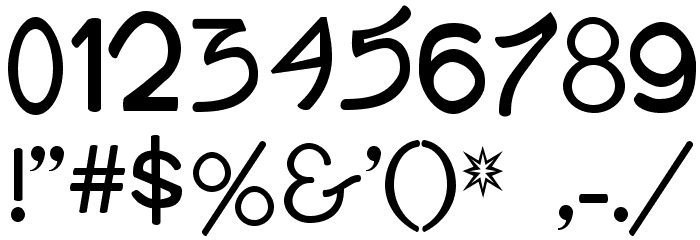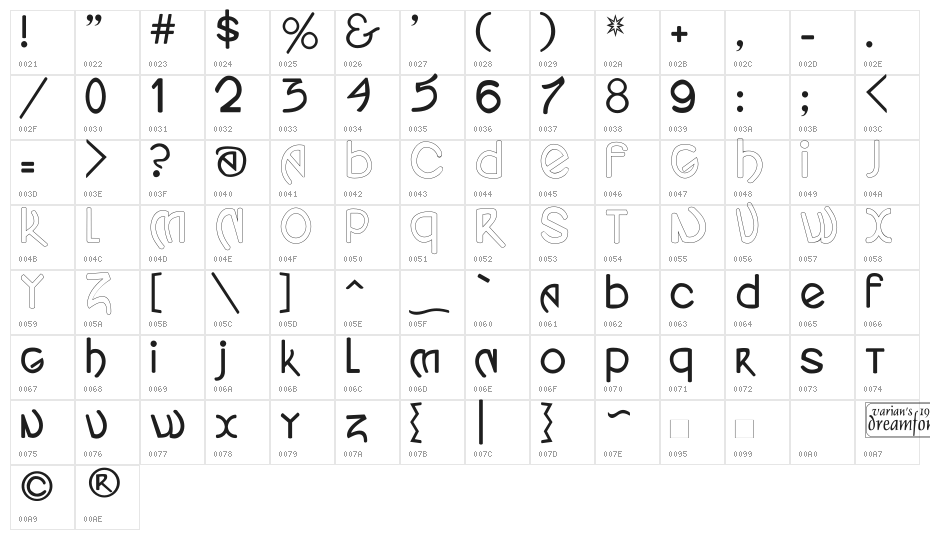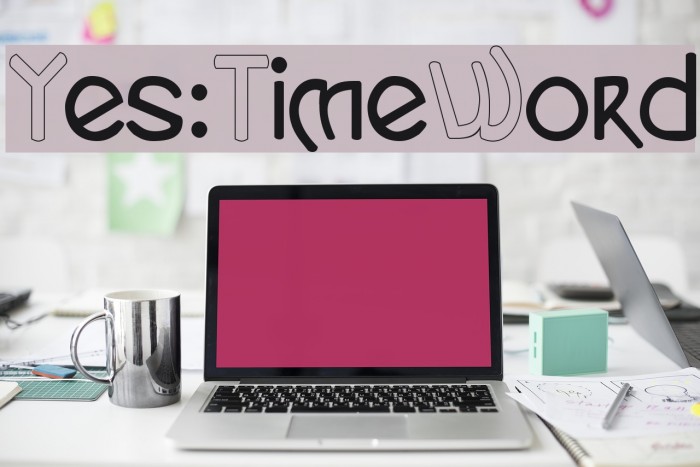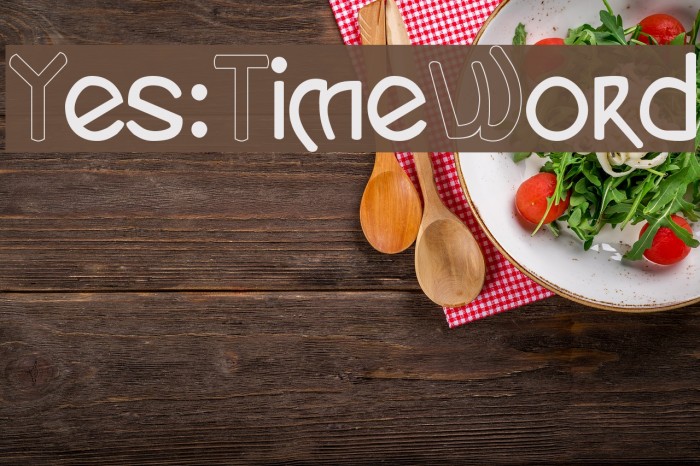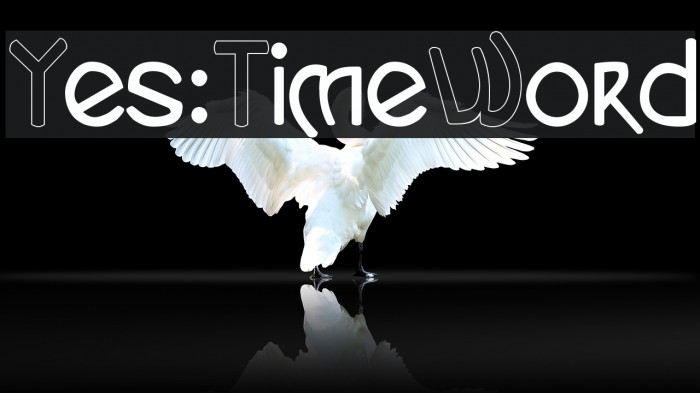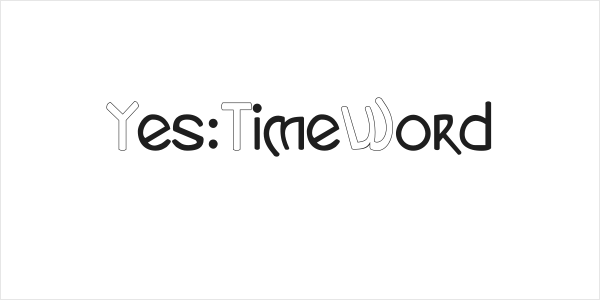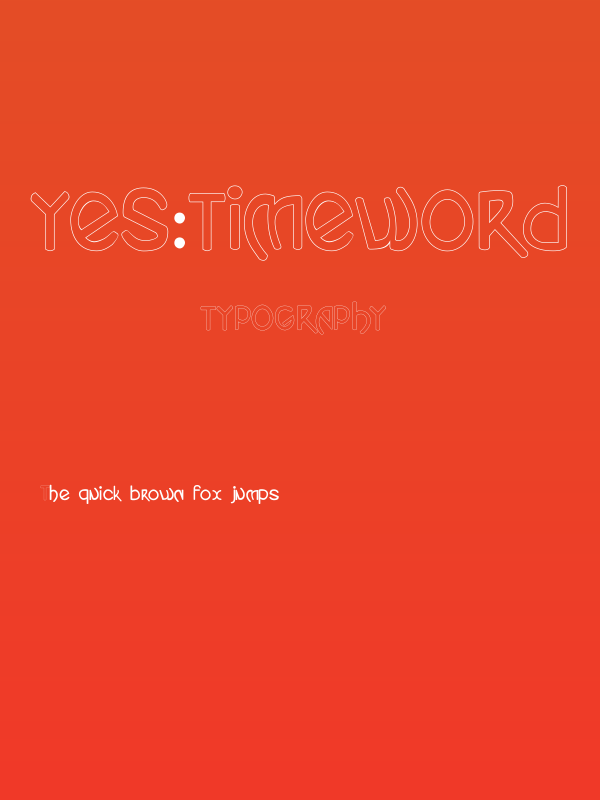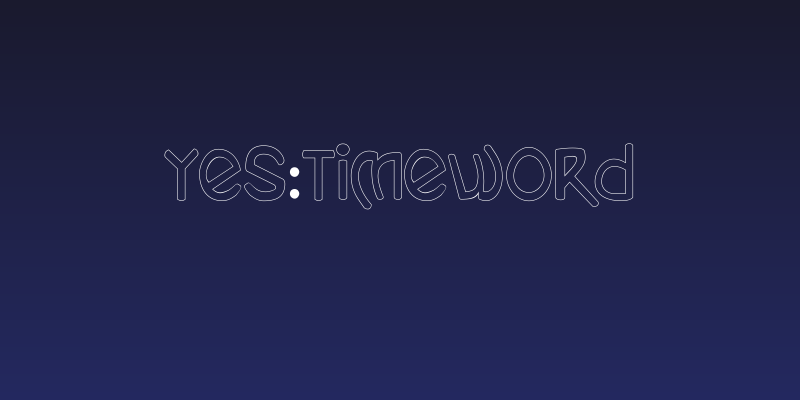
Yes:TimeWord Font
Yes:TimeWord Description
This font features a playful and modern design with a unique blend of rounded and angular elements. The uppercase letters exhibit a consistent height with a slight slant, giving them a dynamic appearance. The lowercase letters maintain a similar style, with some characters like 'a' and 'e' showcasing a more open form. The numerals are bold and easily distinguishable, while the special characters add a touch of whimsy with their creative shapes. Overall, this font combines readability with a distinctive flair, making it suitable for various creative applications.